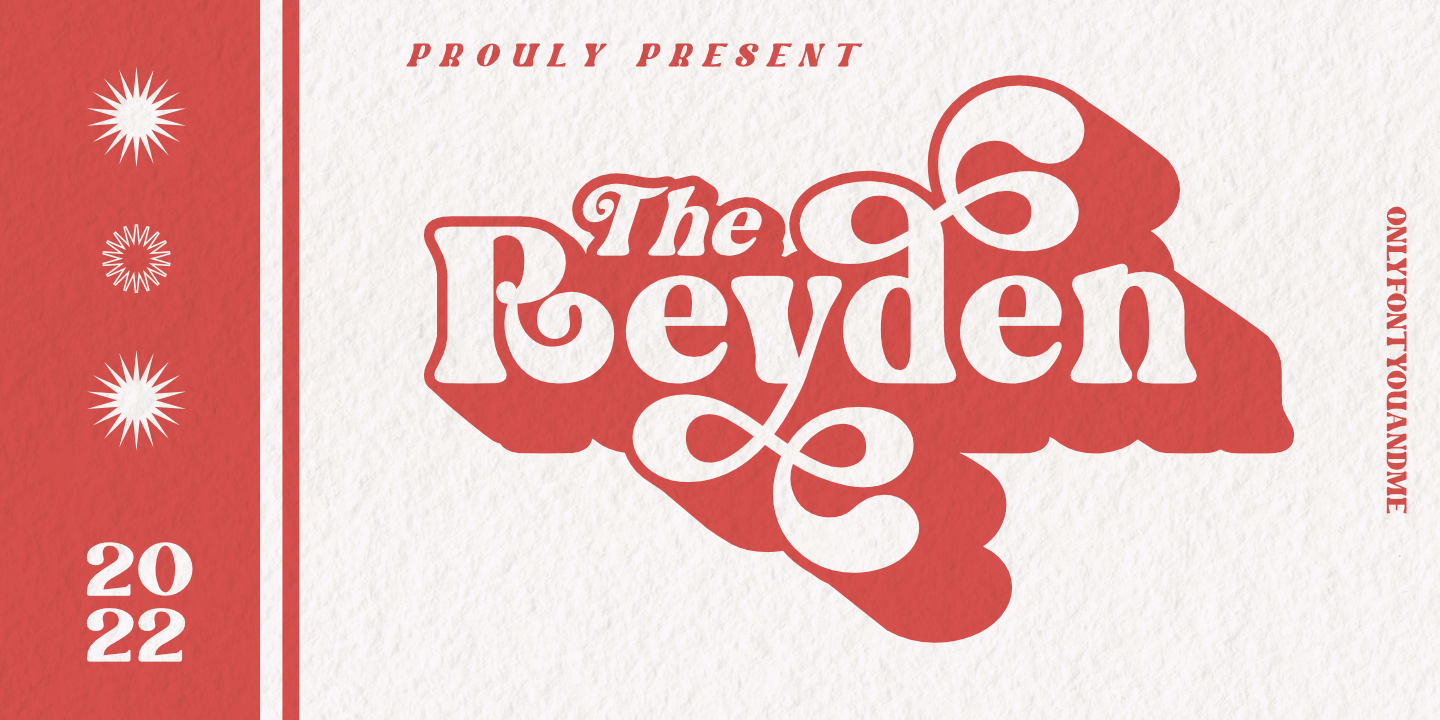
The Reyden Font is perfect for creative agency branding, contemporary art galleries, modern lifestyle magazines, innovative product packaging, boutique fashion labels, progressive architectural firms, design studio identities, and cutting-edge marketing campaigns.
The Reyden Font is exciting because it embodies the perfect fusion of artistic expression and modern sophistication through its distinctive character design that captures the essence of contemporary creativity and forward-thinking design philosophy. Its unique styling and innovative appeal make it the perfect choice for brands that want to communicate originality, artistic vision, and the transformative power of creative excellence.
The Reyden Font family includes multiple creative variations: The Reyden Light, The Reyden Regular, The Reyden Medium, The Reyden Bold, The Reyden Italic, and The Reyden Display, along with artistic flourishes and contemporary decorative elements, providing designers with comprehensive tools for creating sophisticated modern and creative brand experiences.
When exploring contemporary creative typography solutions, The Reyden Font Free Download emerges as the ultimate choice for designers working on artistic and creative projects that require genuine design sophistication and innovative appeal. This exceptional typeface embodies the essence of modern creativity while offering the technical precision that contemporary creative agencies and design studios require. The font's artistic character and innovative authenticity create immediate connections with audiences who appreciate cutting-edge design and creative excellence.
Creative professionals consistently choose The Reyden Font for projects requiring authentic artistic sophistication and powerful innovative appeal. Its expertly crafted letterforms feature contemporary influences that work exceptionally well in both large-scale gallery exhibitions and intimate creative portfolio presentations. The font's ability to convey artistic vision and design innovation while maintaining strong brand recognition makes it invaluable for comprehensive identity systems in the creative services, contemporary art, and innovative design sectors.
Whether you're developing creative agency identities, creating modern art exhibition materials, or designing innovative product campaigns, The Reyden Font delivers the authentic creative character and artistic appeal that resonates with audiences who embrace contemporary design and creative innovation. Its artistic significance and sophisticated design ensure your projects communicate cutting-edge creativity while maintaining contemporary professional standards that attract modern creative clients and design enthusiasts.